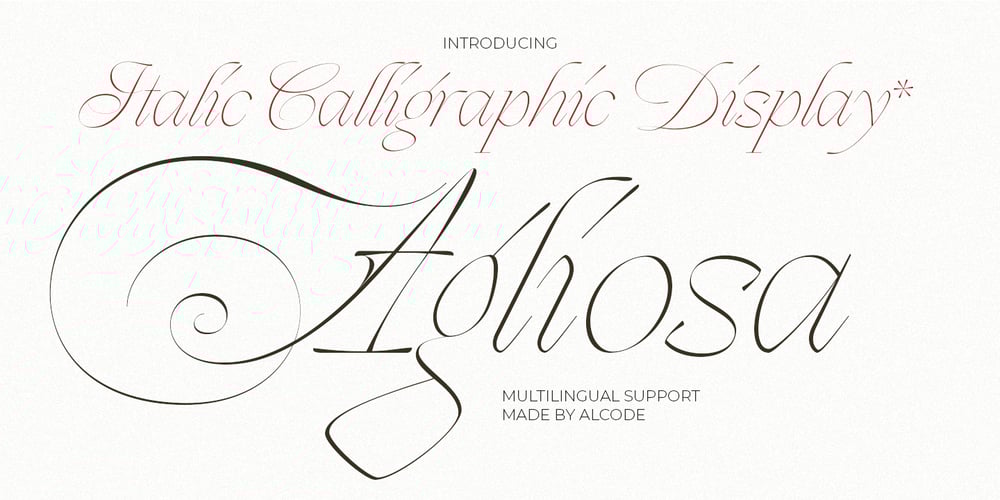
Agliosa Font Family was designed by Sukjana Almunandar and published by Alcode. Agliosa contains 1 styles and family package options. Agliosa is a thin and unique italic calligraphy font, which also has script elements in it, such as uppercase letters which have alternatives that contain classic script elements. so this font is perfect for use in your various design work needs.Try Agliosa, enjoy the richness of OpenType features and let her fun and elegant excitement make you happy and enhance your creativity! You can use this font very easily.